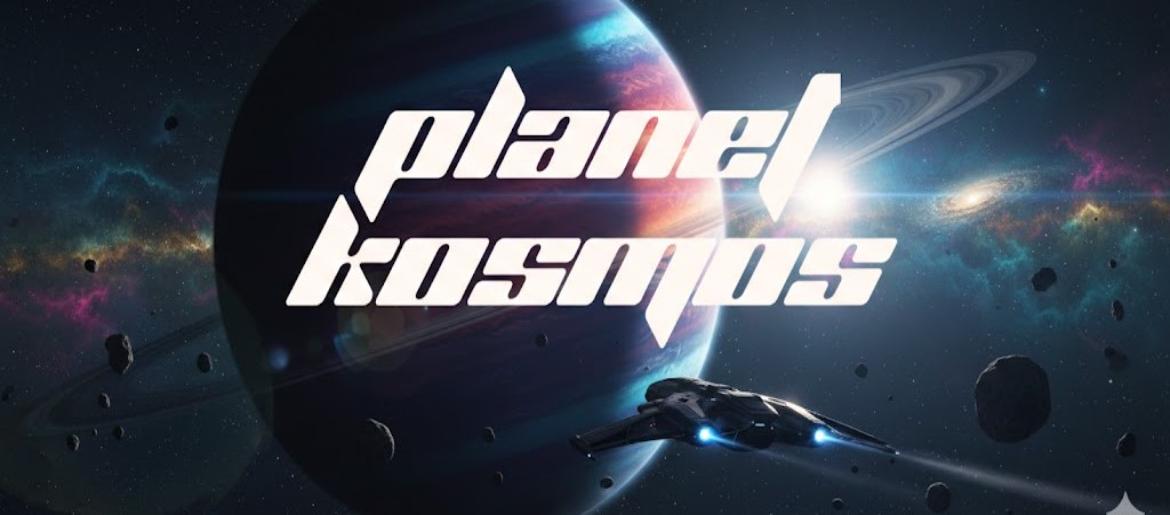
Planet Kosmos Font
Planet Kosmos Font is a futuristic display typeface inspired by space and sci-fi aesthetics. With geometric shapes and a modern cosmic feel, it’s ideal for technology branding, game titles, posters, logos, and designs that aim for a bold, interstellar atmosphere.